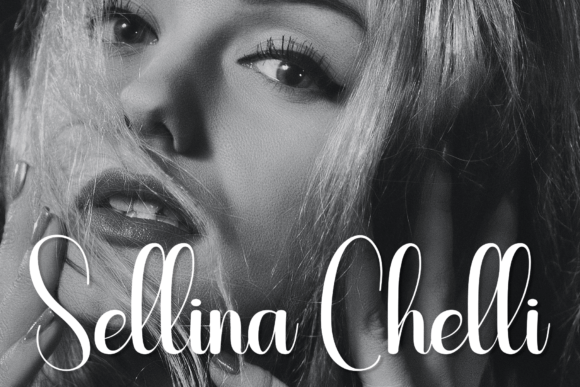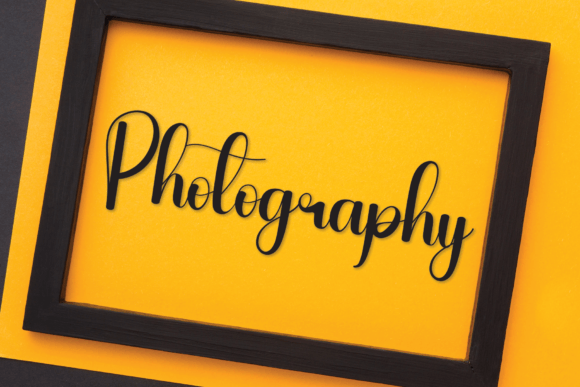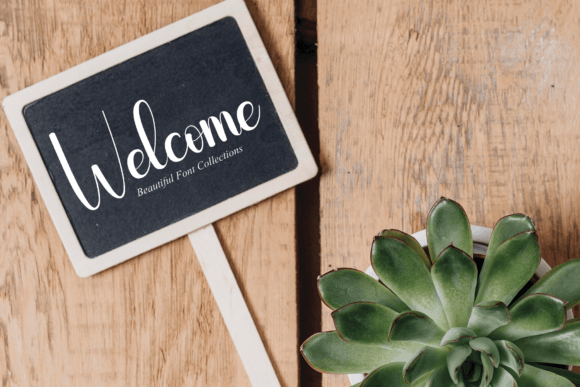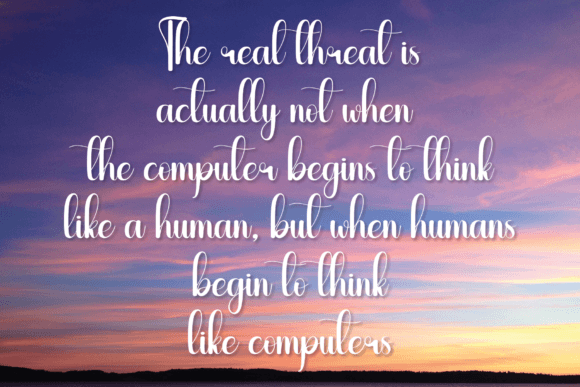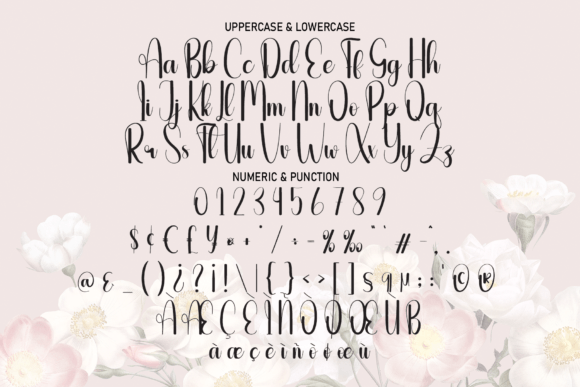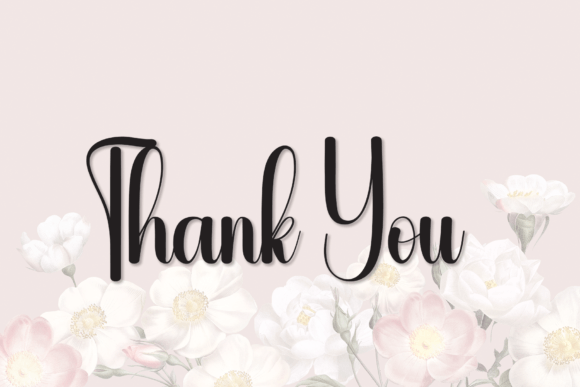
The Perfect Font for Your Creative Vision
You’ve spent hours perfecting your design, pouring your heart and soul into every detail. And then, it hits you – that one crucial element that takes your project from good to great. For many designers, this moment comes when they discover the perfect font to bring their vision to life.
Enter Audience Font, a stylish and approachable handwritten font that’s sure to capture attention. With its versatility and effortless charm, Audience Font is the ideal companion for designers looking to add a personal touch to their work. Whether you’re creating a logo, brochure, or social media campaign, this font will help you connect with your audience in a meaningful way.
Audience Font Key Features
- Unique Characteristics: Audience Font features a unique, modern design that is highly readable and versatile, making it suitable for a wide range of applications, from body text to headings and titles.
A Designer’s Review of Audience Font
As a designer, I’ve had the chance to work with Audience Font, and I’m here to share my honest thoughts on this popular typeface.
- Neutral yet distinctive: Audience Font has a unique style that stands out without being too bold or overpowering.
- Legibility: It’s incredibly easy to read, making it perfect for body text or headlines.
- Modern feel: The font’s sleek design gives it a modern, professional look that’s perfect for contemporary branding.
- Extensive character set: Audience Font includes a wide range of languages and special characters, making it a great choice for global projects.
- Limited expressiveness: While Audience Font is great for most purposes, it may not be the best choice for projects that require a lot of personality or emotional connection.
- Not ideal for large headings: While it’s great for body text, Audience Font can get lost in large headings or titles.
Audience Font is a solid, dependable choice for designers. While it may not be the most exciting or expressive font, it’s a great all-around option that’s easy to read and looks professional. If you’re looking for a versatile font that won’t let you down, Audience Font is definitely worth considering.
Audience Font Practical Application Guide
The Audience Font is ideal for presentations, social media graphics, and marketing materials where you need to grab the viewer’s attention. Use it in headings or titles to emphasize key points and create a clear visual hierarchy.
Experiment with different font sizes and styles to create visual interest. Use the font in combination with other design elements to create a cohesive design. Ensure readability by adjusting font size and color accordingly.
Alternatives to Audience Font for Designers
Lato Font is a clean and modern sans-serif typeface. It is suitable for body text and headlines, making it ideal for digital products and websites. When to use: body text, headlines, digital products, websites. Comparison: Lato Font has a more neutral tone compared to Audience Font, which has a slightly warmer feel.
Merriweather Font is a classic serif typeface with a timeless feel. It is suitable for print and digital materials, making it ideal for books, magazines, and websites. When to use: print materials, digital materials, books, magazines, websites. Comparison: Merriweather Font has a more traditional feel compared to Audience Font, which has a modern feel.